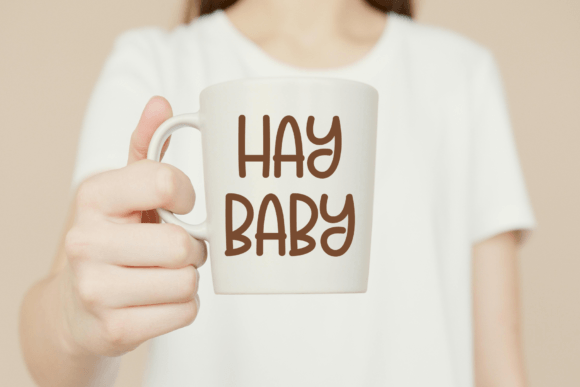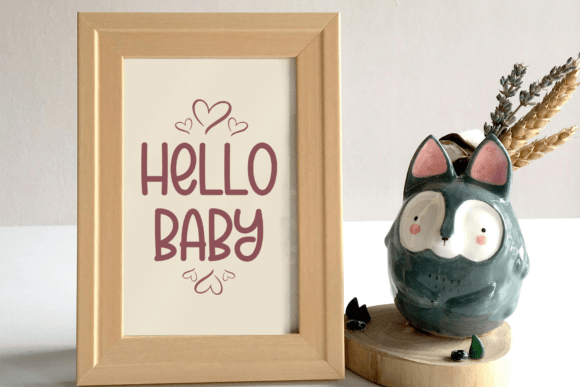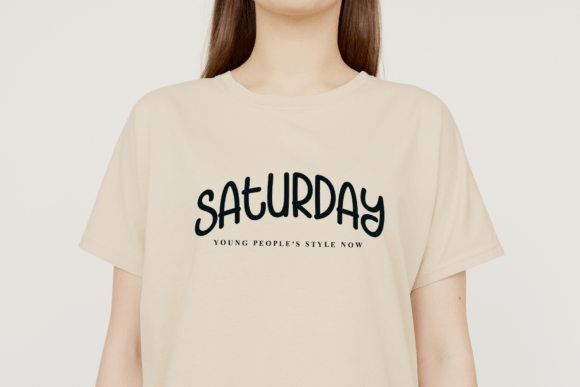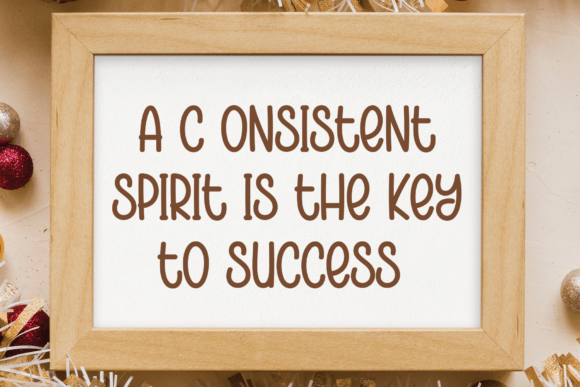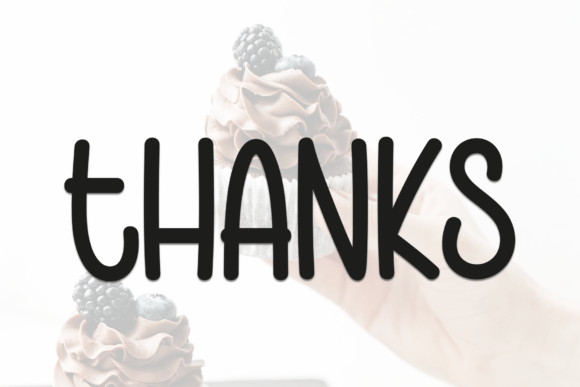
Introducing Choco Cake Font: The Perfect Addition to Your Design Collection
Are you a designer or crafter looking for a unique and elegant font to elevate your projects? Look no further than Choco Cake Font! This beautiful handwritten font is described by its elegant touch, making it perfect for a wide range of applications. In this article, we’ll take a closer look at Choco Cake Font, its features, and how you can use it to create spectacular designs.
What is Choco Cake Font?
Choco Cake Font is a neat and beautiful handwritten font that exudes elegance and sophistication. Its incredibly distinct and timeless style makes it perfect for designers and crafters who want to add a touch of luxury to their projects. Whether you’re working on a branding project, creating social media graphics, or designing a wedding invitation, Choco Cake Font is sure to impress.
Key Features of Choco Cake Font
So, what makes Choco Cake Font so special? Here are some of its key features:
- Elegant and Refined: Choco Cake Font has an elegant and refined feel that makes it perfect for high-end designs.
- Handwritten Style: The font’s handwritten style gives it a personal and unique touch that’s sure to stand out.
- Timeless Appeal: Choco Cake Font has a timeless appeal that won’t go out of style anytime soon.
- Versatile: The font is versatile and can be used for a wide range of projects, from branding and advertising to packaging and more.
How to Use Choco Cake Font
Choco Cake Font is easy to use and can be incorporated into your designs in a variety of ways. Here are some ideas to get you started:
- Branding and Logo Design: Use Choco Cake Font to create a luxurious and sophisticated brand identity.
- Social Media Graphics: Add a touch of elegance to your social media graphics with Choco Cake Font.
- Wedding Invitations: Make your wedding invitations truly special with Choco Cake Font.
- Packaging Design: Use Choco Cake Font to create beautiful and eye-catching packaging designs.
Benefits of Using Choco Cake Font
So, why should you choose Choco Cake Font for your designs? Here are some benefits of using this beautiful font:
- Unique and Distinctive: Choco Cake Font is a unique and distinctive font that will set your designs apart from the rest.
- Elegant and Sophisticated: The font’s elegant and sophisticated style makes it perfect for high-end designs.
- Easy to Read: Choco Cake Font is easy to read, making it perfect for body text and headings.
- Customizable: The font is customizable, allowing you to adjust the size, color, and style to suit your needs.
Tips for Getting the Most Out of Choco Cake Font
Here are some tips for getting the most out of Choco Cake Font:
- Use it Sparingly: Use Choco Cake Font sparingly to create a sense of luxury and sophistication.
- Pair it with Other Fonts: Pair Choco Cake Font with other fonts to create a unique and interesting contrast.
- Pay Attention to Kerning: Pay attention to kerning to ensure that your text looks professional and polished.
Choco Cake Font is a beautiful and elegant handwritten font that’s perfect for designers and crafters who want to add a touch of luxury to their projects. With its incredibly distinct and timeless style, Choco Cake Font is sure to impress. Whether you’re working on a branding project, creating social media graphics, or designing a wedding invitation, Choco Cake Font is the perfect addition to your design collection.